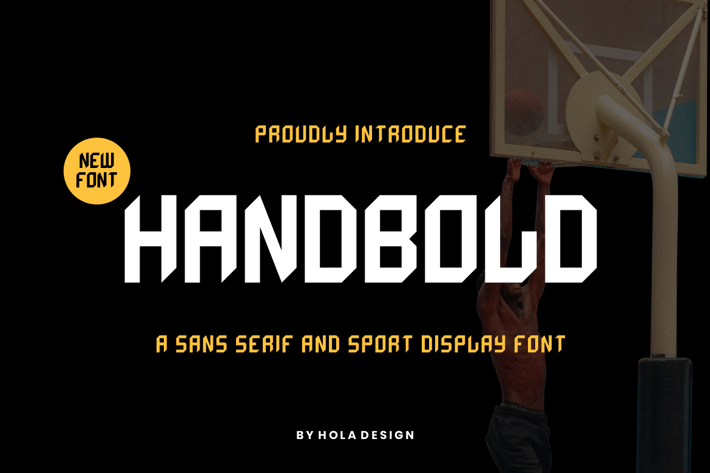
Handbold - Sans Serif Font
Handbold - Sans Serif Font Font is unique . Ready to use for your design like labeling, movie sceen, poster, movie title, gigs, album covers, logos, and much more.